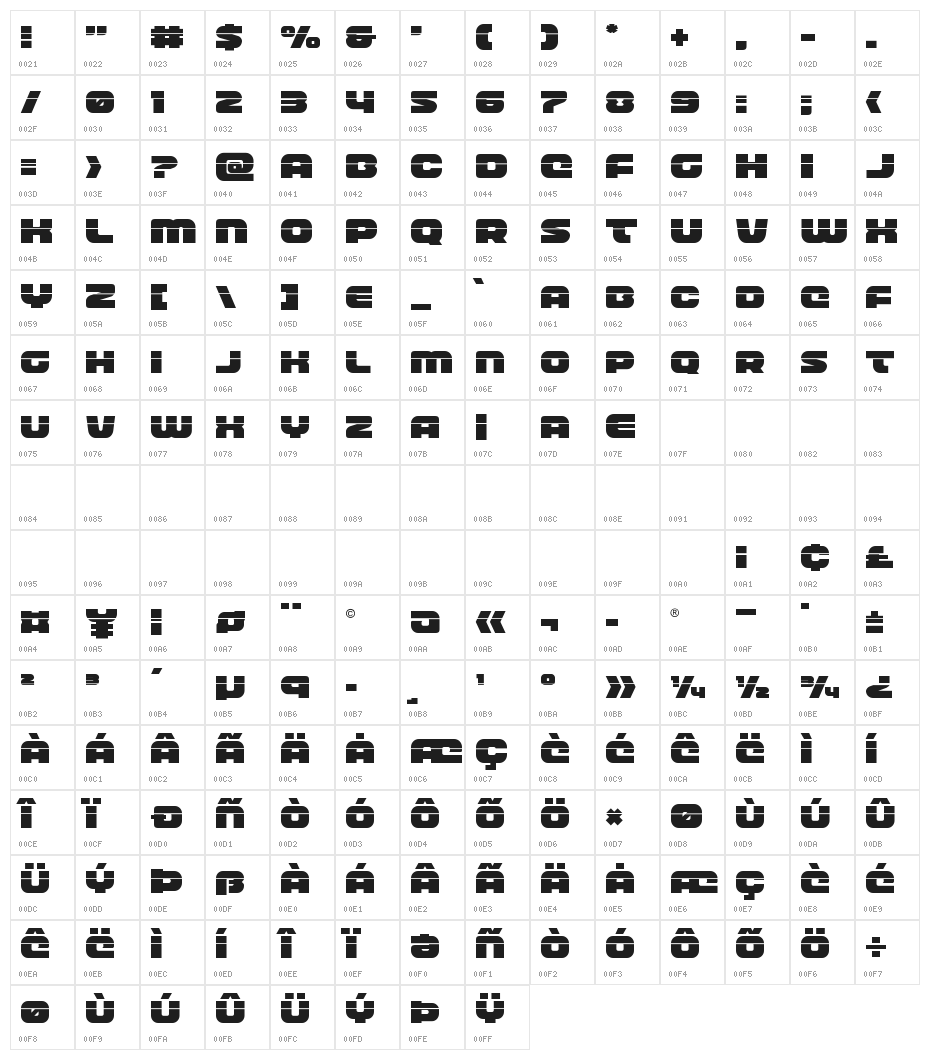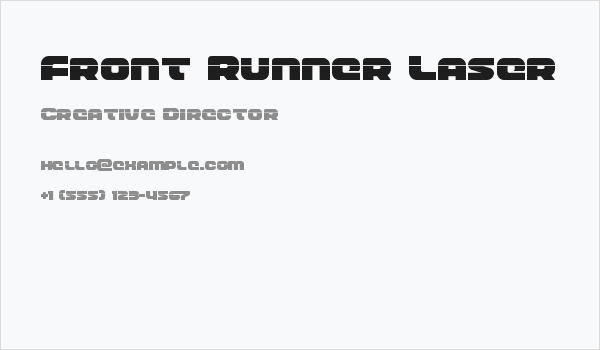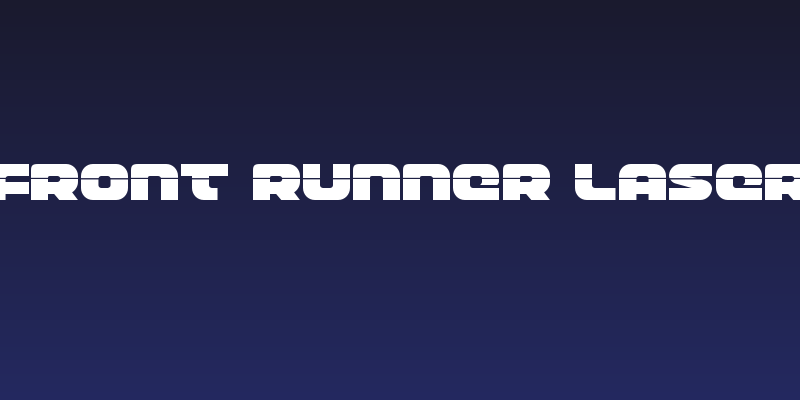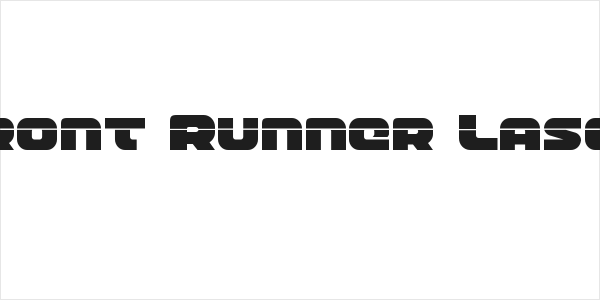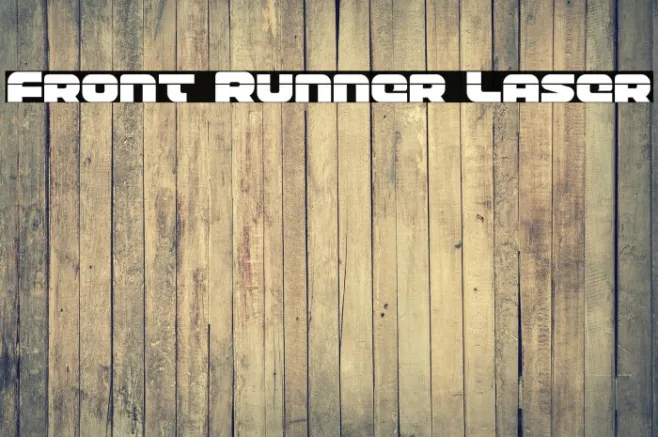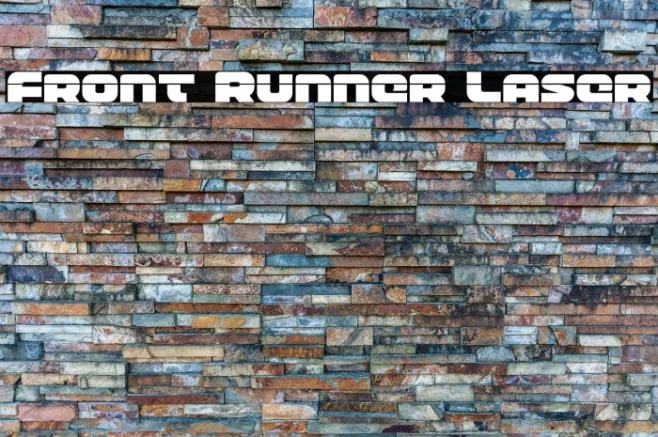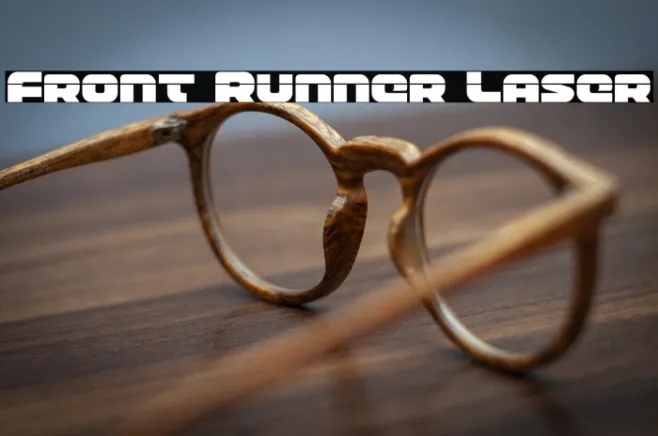
Front Runner Laser Font
Front Runner Laser Description
This font features a bold, futuristic design with a strong geometric influence. The characters are constructed with thick, block-like shapes that convey a sense of strength and modernity. The uppercase and lowercase letters maintain a consistent style, with rounded edges and uniform thickness throughout. The numbers and special characters follow the same design principles, ensuring a cohesive look across all glyphs. This font's unique style makes it stand out, ideal for projects that require a bold and impactful visual statement.
| Proposed Projects | Ideal for technology branding, sci-fi posters, video game titles, and modern advertising campaigns. |